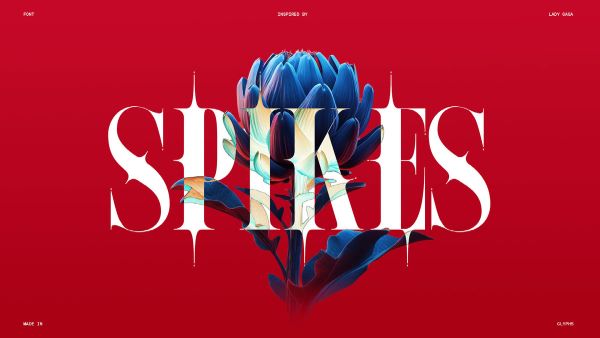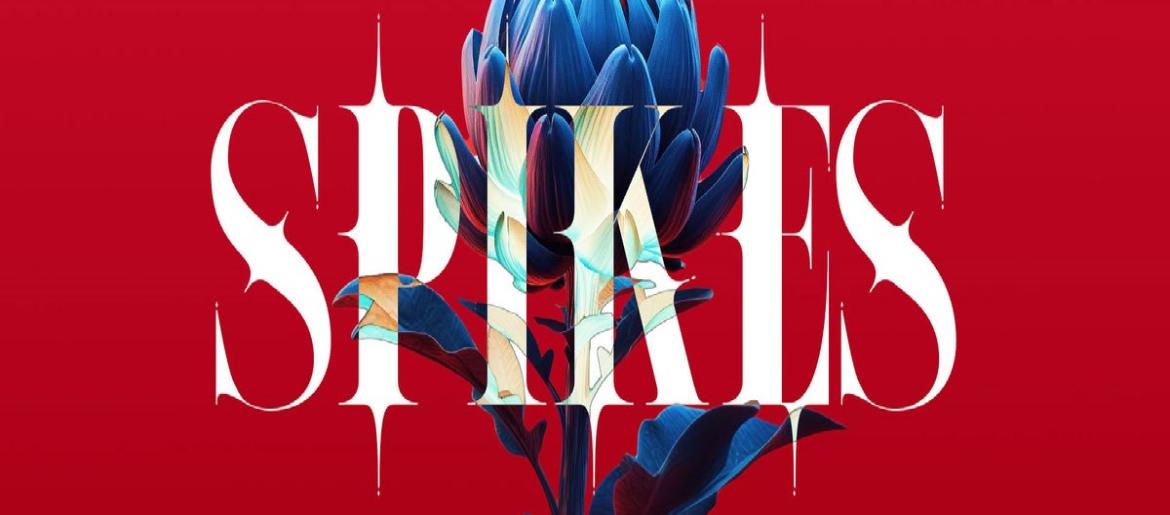
Spikes Font
Spikes by Artem Pozdnyakov is an edgy display serif born from the electric world of Lady Gaga and the visual chaos of her Mayhem Ball Tour. It takes the structured elegance of classical serif typography and deliberately breaks the rules — repositioning serifs in unexpected, unconventional ways that mirror the boldness and artistic defiance that defines Gaga herself.
The result is a typeface that feels simultaneously rooted in typographic tradition and gloriously rebellious against it. Sharp, dramatic, and unmistakably theatrical, Spikes is made for headlines, poster titles, album artwork, editorial covers, and any creative project that demands a visual statement rather than a whisper. This is a font that doesn’t blend in — it performs.
Font Style: Display / Serif